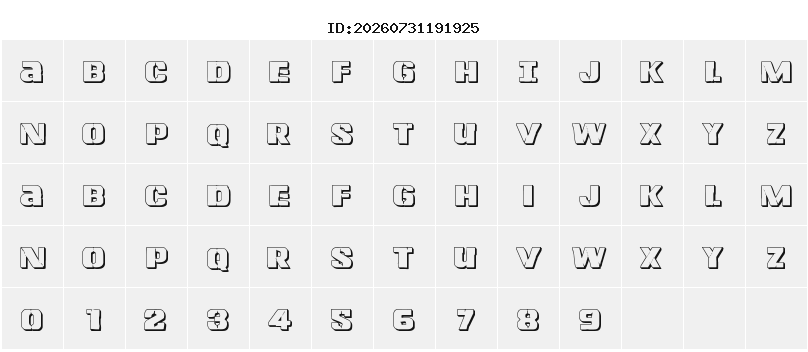
• Font Name: Left Hand Luke 3D
Left Hand Luke 3D.ttf is a modern, elegant sans-serif font designed for ultimate readability and visual harmony. Perfect for branding, headlines, web design, and print materials.